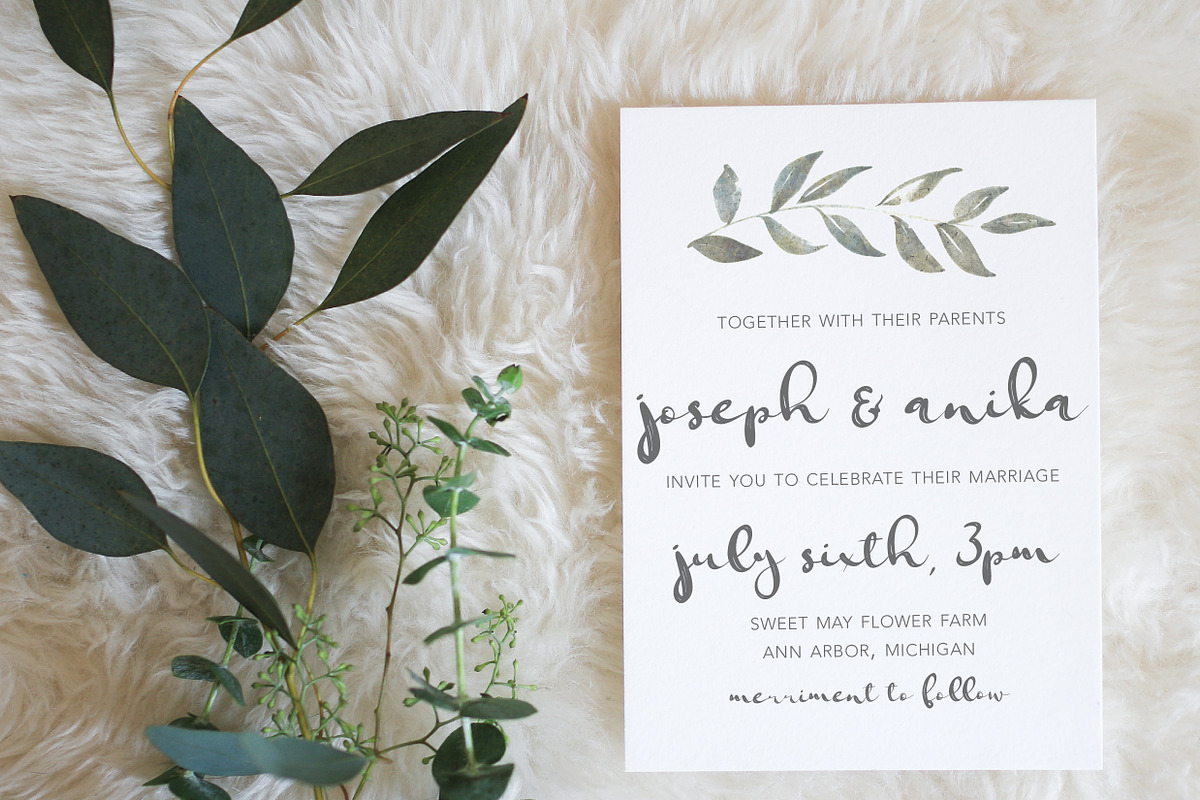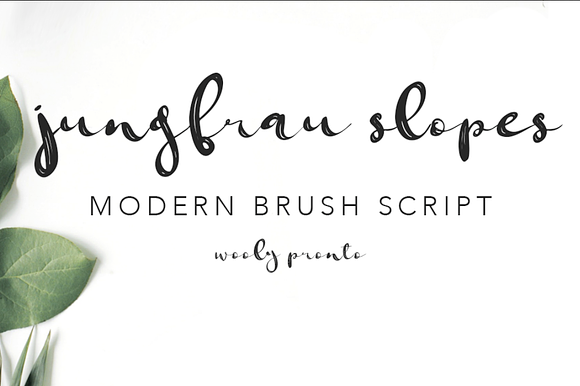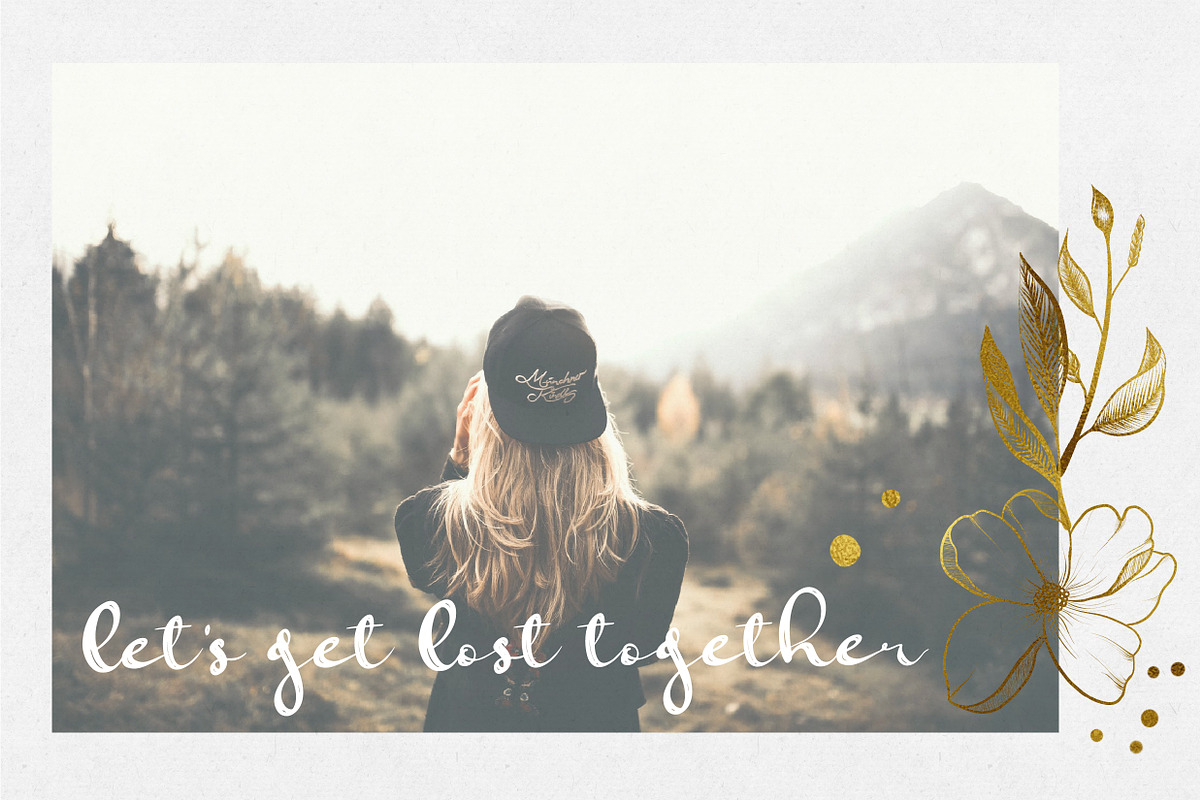
Jungfrau Slopes Modern Brush Font
Introducing JUNGFRAU SLOPES - a hand drawn brush script. Includes lowercase, numerals, a range of punctuation, and wide array of multilingual character support.
- Includes lowercase, numerals, a range of punctuation, and wide array of multilingual character support.
Jungfrau Slopes Modern Brush Font by Wooly Pronto fits naturally into Branding, posters, packaging, typography.